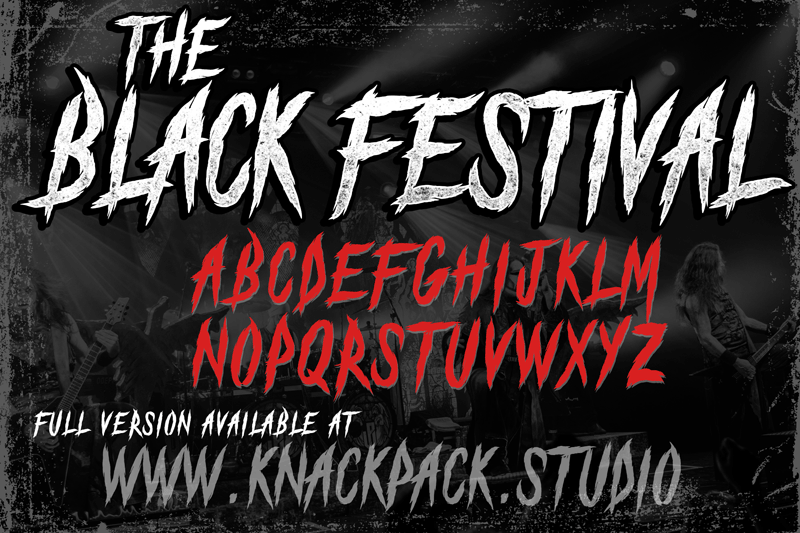
The Black Festival Font
-The Black Festival –
Inspired by the heavy dark music..
-The Black Festival –
Inspired by the heavy dark music..
| Classification: | Brush Fonts |